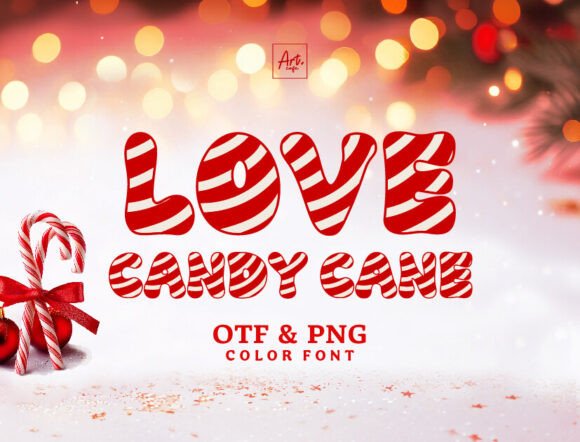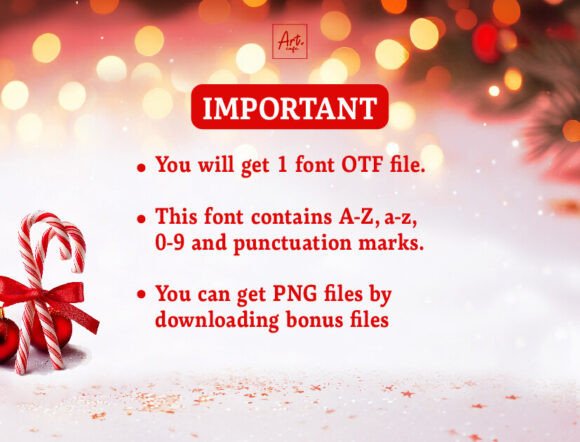
Love Candy Cane Font
Introducing Love Candy Cane, a delightful font fusion of the timeless Red-White striped Candy Cane. Drenched in the warm blush of yesteryears, this enchanting typeface serenades Christmas festivities, whispers Valentine’s Day emotions, and mesmerizes in whimsical child-focused creations. Love Candy Cane brings an extra touch of magic, offering accompanying PNG files tucked away in the ‘Download Bonus Files.’ Let your designs be kissed by the charming joviality of holiday spirit, using this spectacular font.